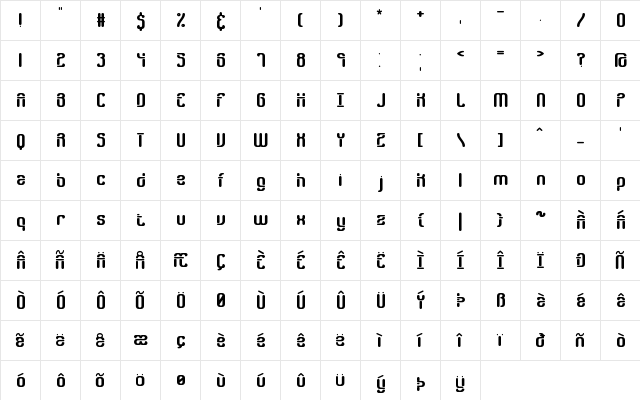
Gather Gapped BRK Normal
| Foundry | ƎIGMA FONTS |
| Designer | ƎIGMA FONTS - Brian Kent |
Design Context for Gather Gapped BRK Typeface
Gather Gapped BRK offers clean, dependable letterforms without strong stylistic allegiance, making it a practical choice for designers who need flexibility.